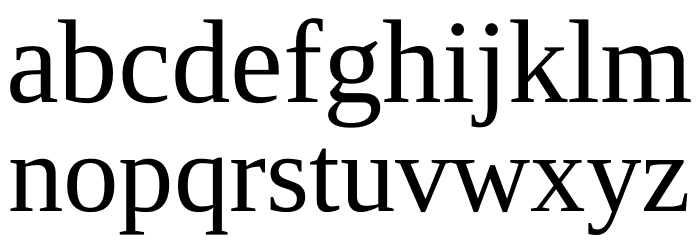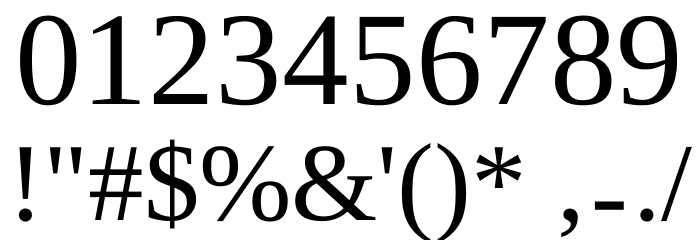
UKIJ Tuz Qara Font
This font features a classic serif design with a modern twist, characterized by its elegant and refined appearance. The uppercase letters are bold and commanding, while the lowercase letters maintain a balanced and harmonious flow. The numerals are clear and distinct, ensuring readability. The special characters are well-integrated, complementing the overall aesthetic. The font's structure is robust, making it suitable for a variety of applications. Its timeless appeal is enhanced by the subtle contrast in stroke thickness, adding depth and sophistication.
A classic serif font with a modern touch, offering elegance and readability.
- Font: UKIJ Tuz Qara
- Proposed Projects: Ideal for editorial design, book covers, formal invitations, and branding projects.
- Category: Serif
- Overall Style: Classic